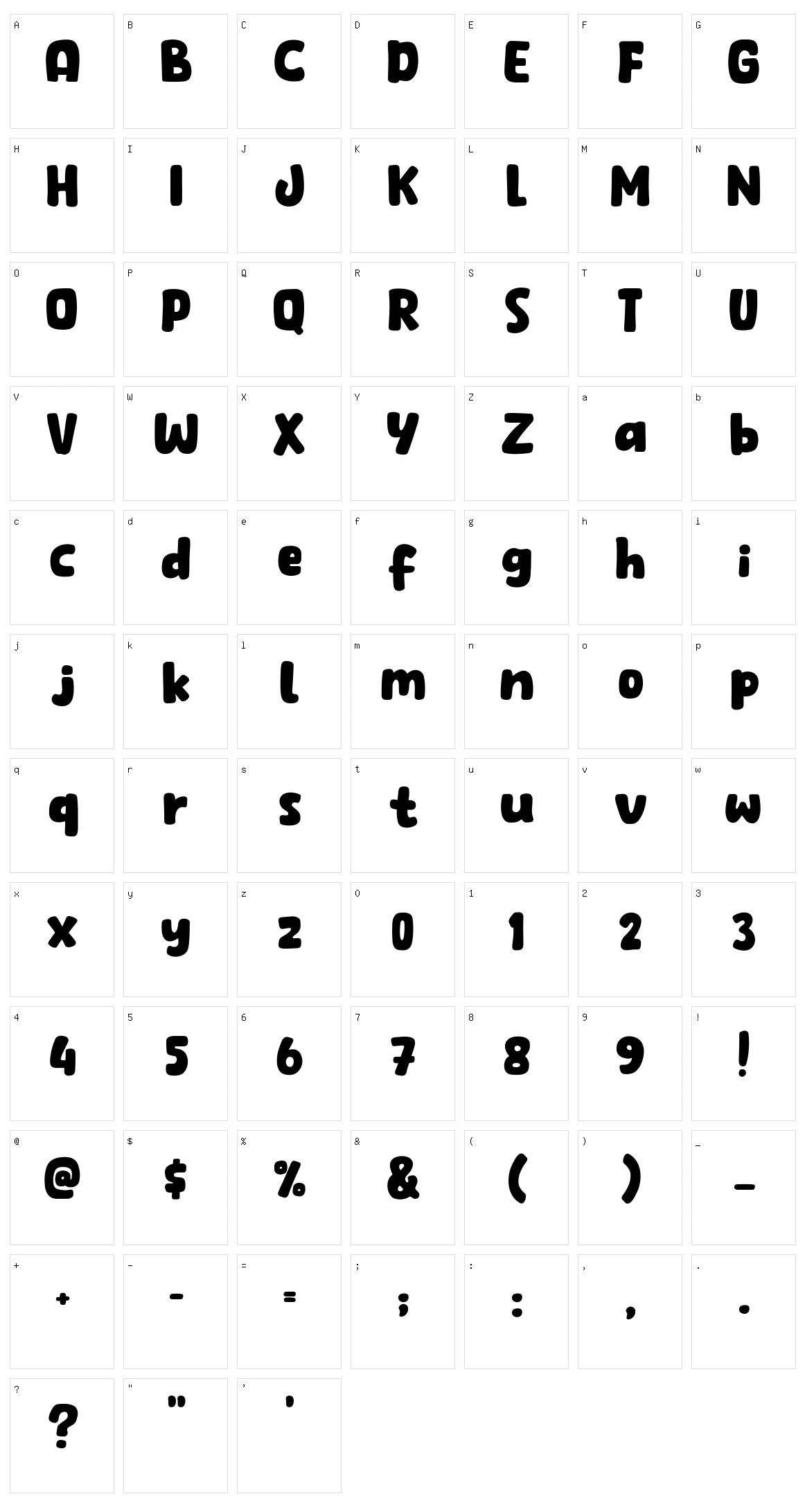
The free font Fresh Steak is carefully designed by Khurasan, showcasing a thoughtful balance of creativity and usability and falls under the Cartoon font style. When you download the ZIP file, it contains only 497.38 KB of font files, making it lightweight and quick to download. Please review the license details below to understand permitted usage and distribution rights. If license information is not available, we recommend using this font for personal projects only or contacting the author directly for commercial usage permissions.